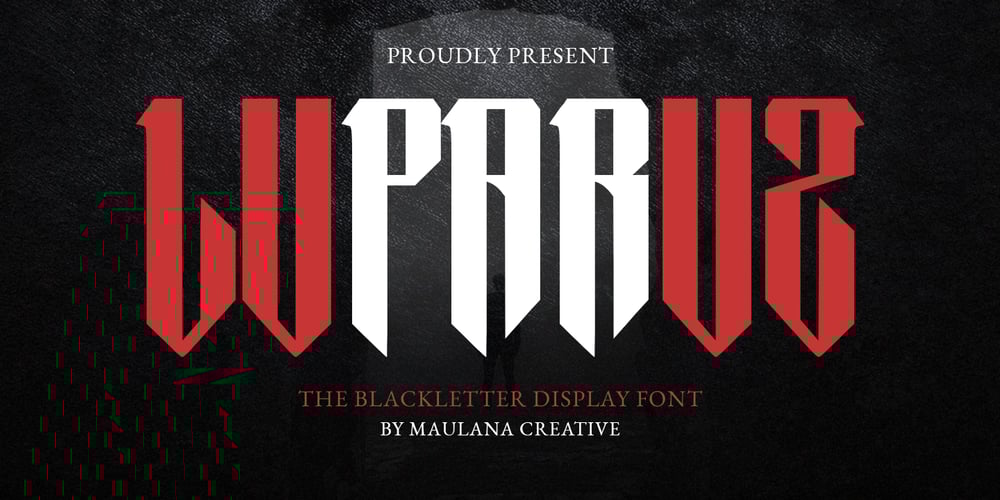
MC Luparuz Font Family was designed by Gilang Maulana and published by Maulana Creative. MC Luparuz contains 1 styles and family package options. Luparuz Blackletter Display Font. Heavy stroke and vintage character. To give you an extra creative work. Luparuz display font support multilingual language. This font is good for logo design, Social media, Movie Titles, Books Titles, a short text even a long text letter and good for your secondary text font with script or serif. Make a stunning work with Luparuz font.